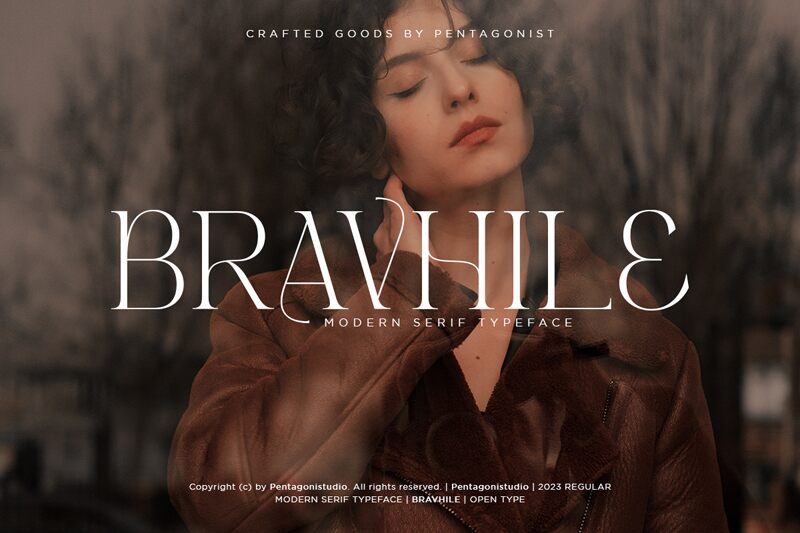
Bravhile font by Pentagonistudio is a stunning serif typeface that exudes elegance and sophistication. With its light weight, Bravhile offers a graceful and airy presence, making it an excellent choice for high-end branding and editorial design. The refined serifs give it a classic touch while maintaining modernity, perfect for projects requiring a blend of tradition and style.
Ideal for luxury invitations, upscale magazine layouts, or chic web design, Bravhile's aesthetic versatility shines in various contexts. Its clear legibility also makes it superb for body text in printed materials. Discover the timeless charm of Bravhile font—download this free font today to elevate your design projects with its exquisite beauty and unmatched sophistication.